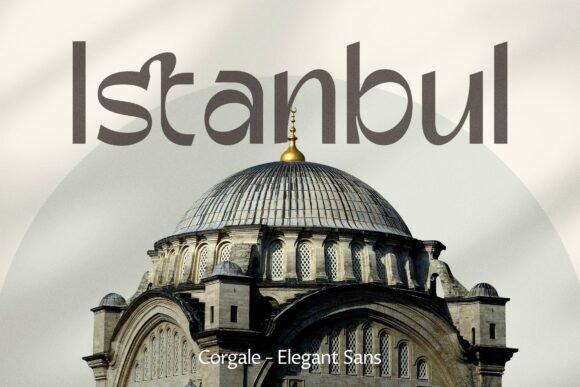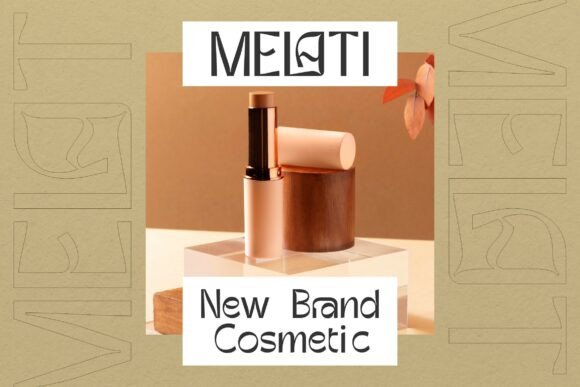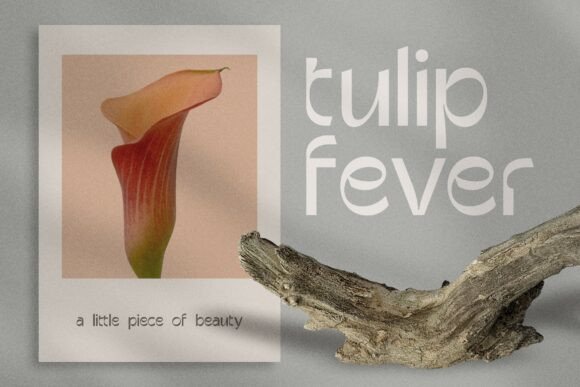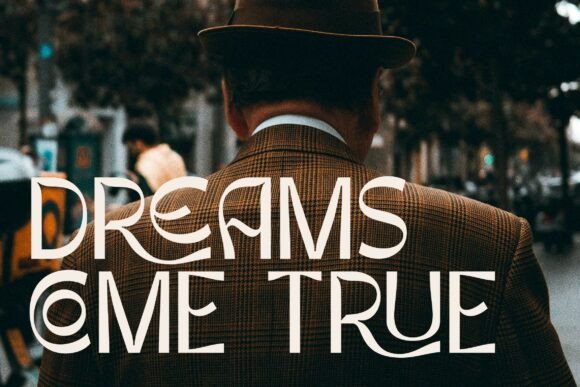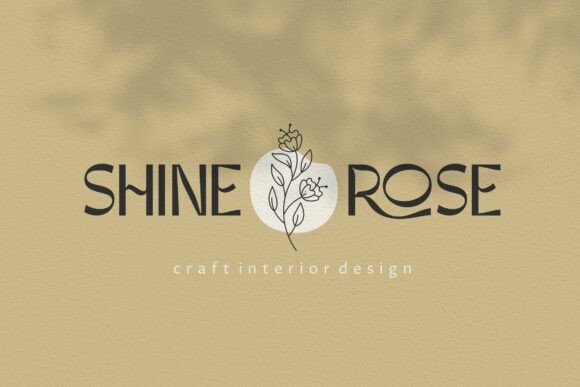
Introducing Corgale Font: The Quirky and Fun Sans for Creative Projects
In the world of typography, a new font has emerged that’s sure to capture the hearts of designers and crafters alike. Say hello to Corgale, a quirky and fun sans font that’s perfect for adding a touch of personality to your branding, headlines, posters, books, magazines, and packaging projects.
A Modern Look with a Vintage Twist
Corgale is mainly characterized by its modern look with a straight and clean shape, making it an excellent choice for contemporary designs. However, its unique features also allow it to blend beautifully with vintage styles, giving you the best of both worlds. Whether you’re working on a modern brand identity or a retro-inspired project, Corgale is sure to impress.
Playful Ligatures for Unique Typography
One of the standout features of Corgale is its playful ligatures. These special character combinations bring a unique personality to each letter, adding a touch of whimsy to your typography. With Corgale, you can create distinctive and eye-catching text that’s sure to grab attention.
Unicase Typeface for Creative Freedom
Corgale is a unicase typeface, which means you can creatively mix uppercase and lowercase letters to create unique typography compositions. This feature gives you the freedom to experiment with different letter combinations, adding a touch of personality to your text. Whether you’re looking to create a bold statement or a subtle nuance, Corgale’s unicase design has got you covered.
Corgale’s versatility makes it perfect for a wide range of projects, including:
- Branding: Use Corgale to create a unique and memorable brand identity that stands out from the crowd.
- Headlines: Add a touch of personality to your headlines with Corgale’s playful ligatures and modern clean shape.
- Posters: Create eye-catching posters that grab attention with Corgale’s quirky and fun design.
- Books and Magazines: Use Corgale to add a touch of whimsy to your book or magazine design, making it more engaging and fun to read.
- Packaging: Stand out on store shelves with Corgale’s unique and playful design, perfect for product packaging.
Why Choose Corgale?
So why choose Corgale for your next project? Here are just a few reasons:
- Unique Personality: Corgale’s playful ligatures and unicase design give it a unique personality that’s sure to make your project stand out.
- Versatility: Corgale’s modern clean shape and vintage-inspired features make it perfect for a wide range of projects and design styles.
- Easy to Use: Corgale is a straightforward font to use, with a simple and intuitive design that makes it easy to get started.
In conclusion, Corgale is a quirky and fun sans font that’s perfect for designers and crafters looking to add a touch of personality to their projects. With its modern clean shape, playful ligatures, and unicase design, Corgale is sure to impress. Whether you’re working on a branding project, creating a poster, or designing a book or magazine, Corgale is a great choice. So why not give it a try and see the difference it can make in your next project?